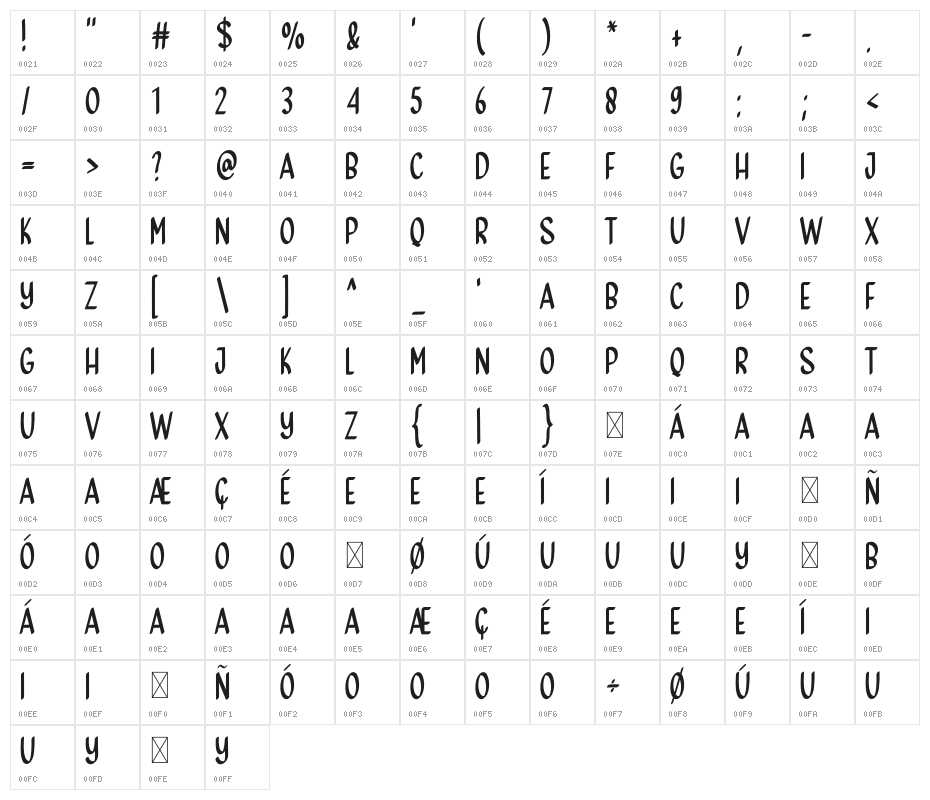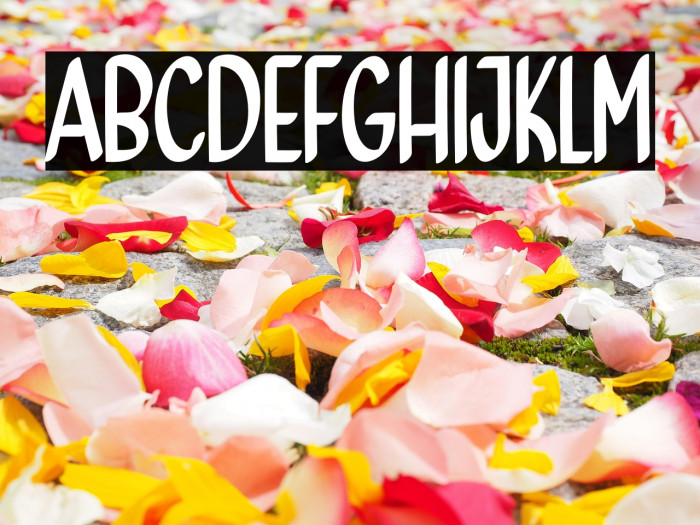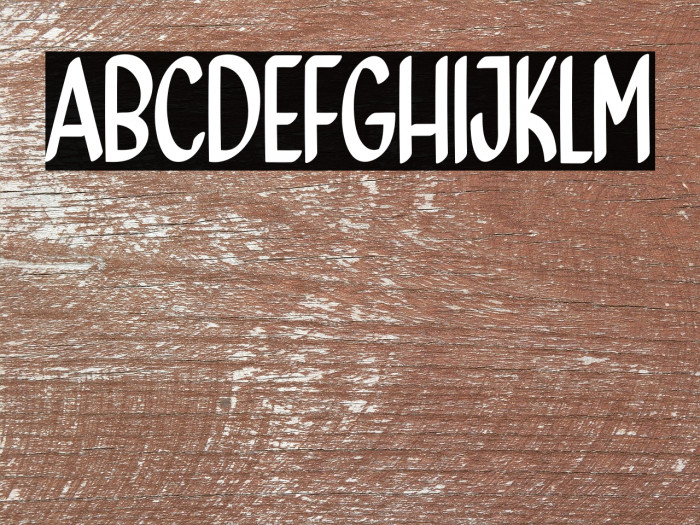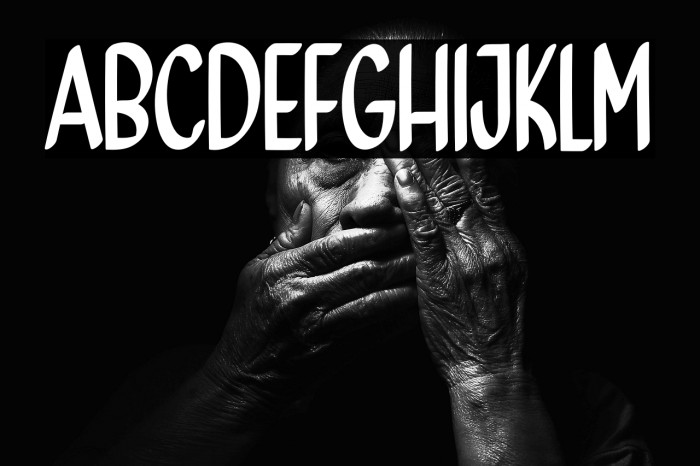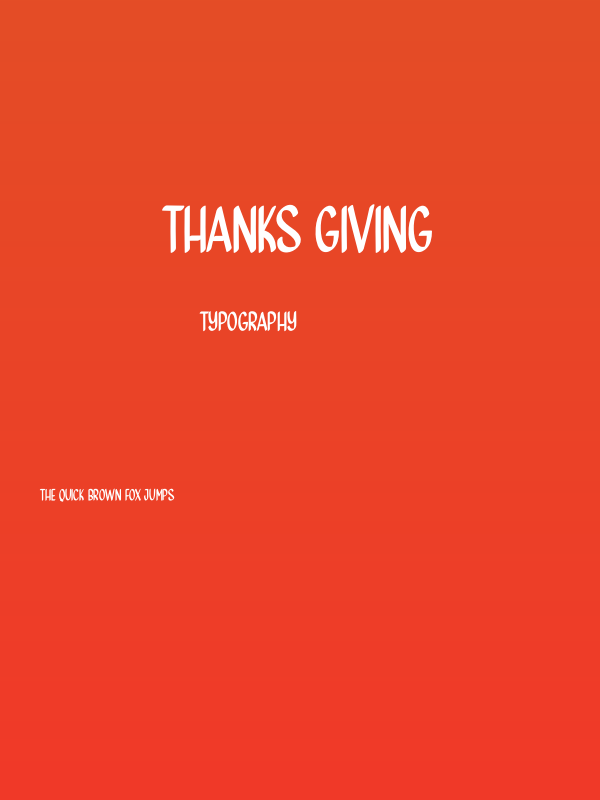
Thanks Giving Font
Thanks Giving Description
A playful, hand-drawn sans-serif font with tall, narrow letters and slightly irregular strokes, giving it a casual and friendly appearance. The characters have rounded edges and consistent stroke width, with a slight slant and varying heights that add to its informal style.
| Overall Style | Playful, Casual, Handwritten |
| Use Case | Headlines, Posters, Greeting cards, Informal branding |
| Proposed Projects | Greeting cards, posters, children's books, invitations, branding for informal products. |